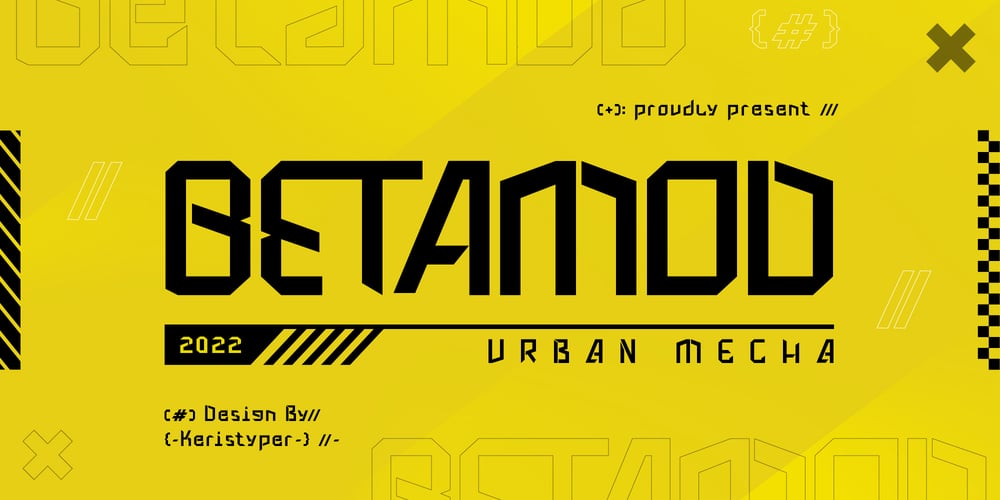
Betamod Font Family was designed by Tezar Tantular and published by Keristyper Studio. Betamod contains 1 styles and family package options. Introducing Betamod, Designed the typeface with a modern feel to achieve the theme that was inspired by sci-fi and technology. This font is good for logo design, Social media, Movie Titles, Books Titles, short text even long text letters, and good for your secondary text font with sans or serif.**Featured:*** Standard Uppercase & Lowercase* Numeral & Punctuation* Multilingual : ä ö ü Ä Ö Ü ß ¿ ¡* Alternate & Ligature* PUA encodedWe recommend programs that support the OpenType feature and the Glyphs panel such as Adobe applications or Corel Draw. so you can use all the variations of the glyphs.Hope you enjoy our fonts!